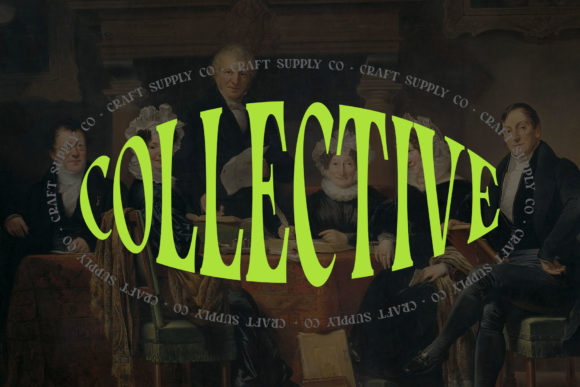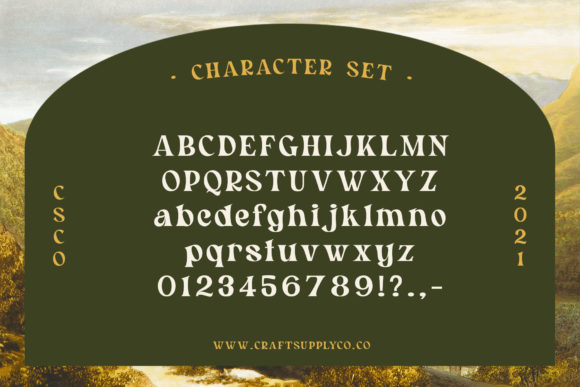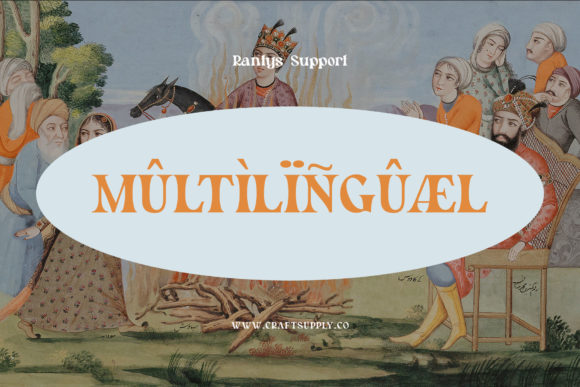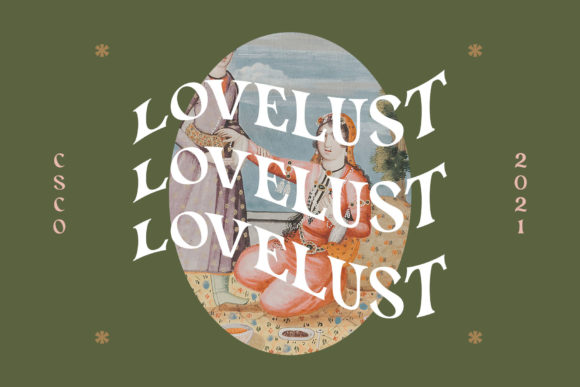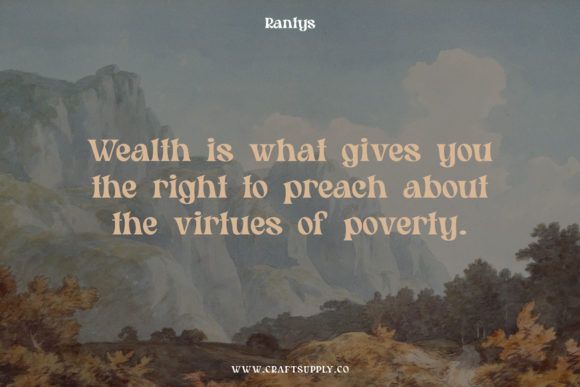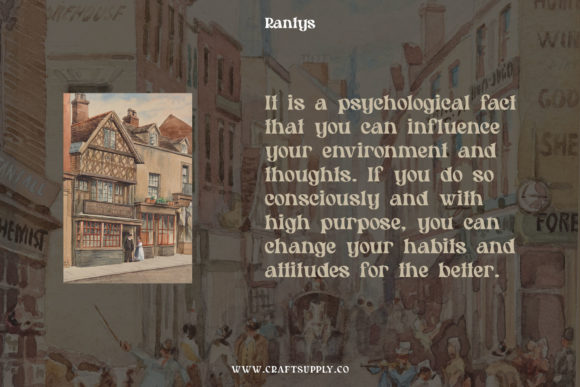
Introduction to Rantys Font
Rantys is a quirky, trendy and thick lettered serif font.
Key Features of Rantys Font
Why Choose Rantys Font?
Rantys Font offers exceptional quality and versatility, making it a valuable addition to your design toolkit. Whether you’re creating for personal projects or commercial use, Rantys Font delivers professional results.